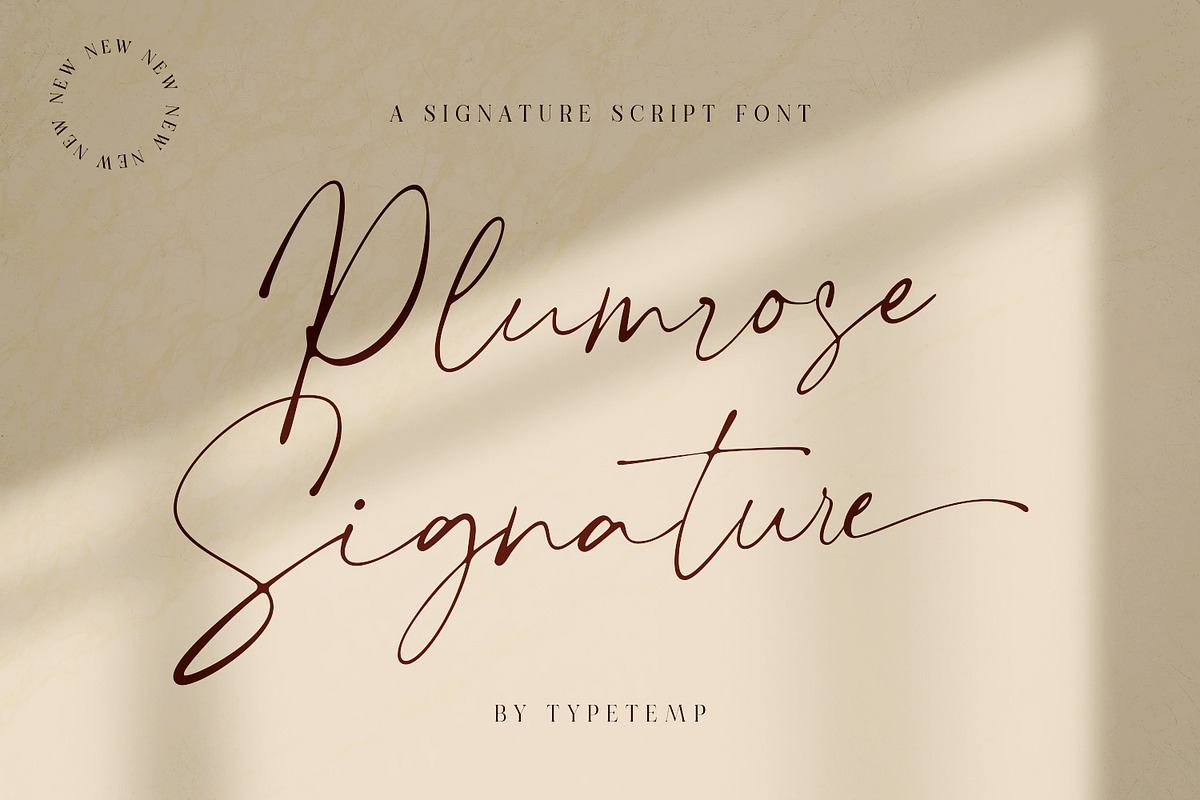
Plumrose Signature Script Font Free Download
Plumrose Signature Script Font Free Download is a sophisticated and elegant handwritten script typeface that adds a personal and refined touch to any design. Perfect for wedding invitations, logos, branding, and more, Plumrose features smooth, flowing letterforms that create a timeless and luxurious feel. Its signature style makes it ideal for projects that require an authentic, handwritten aesthetic.